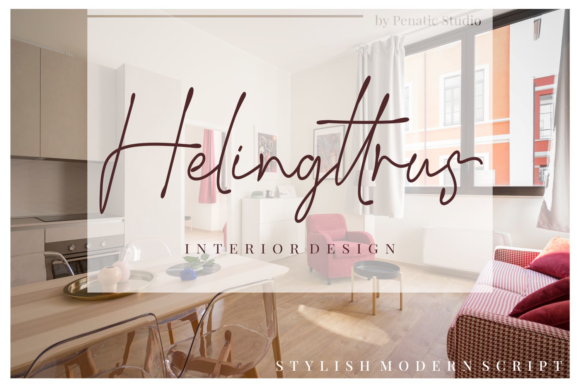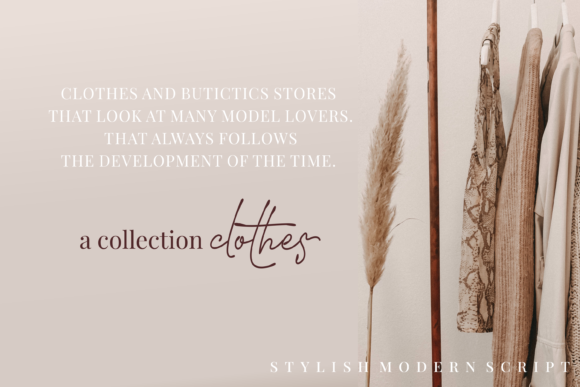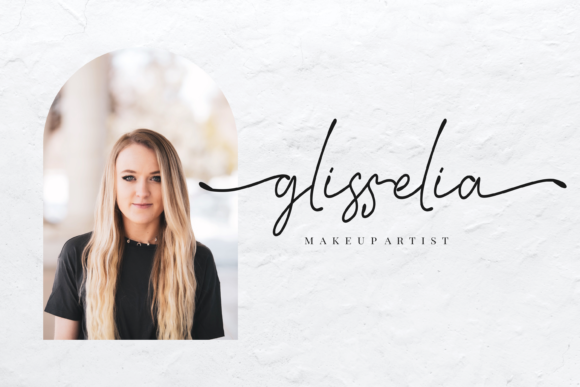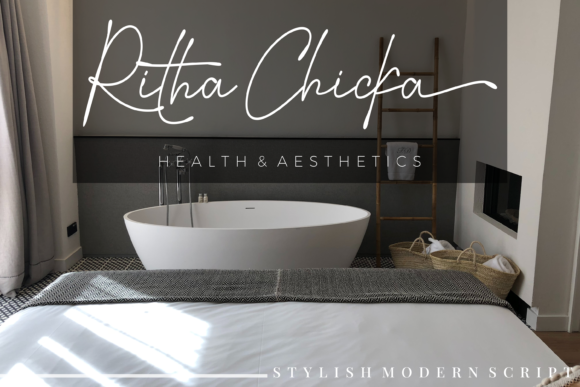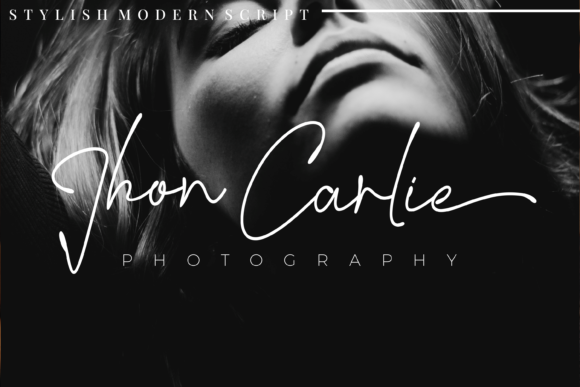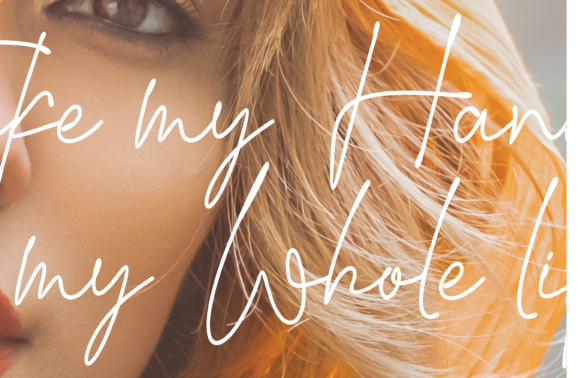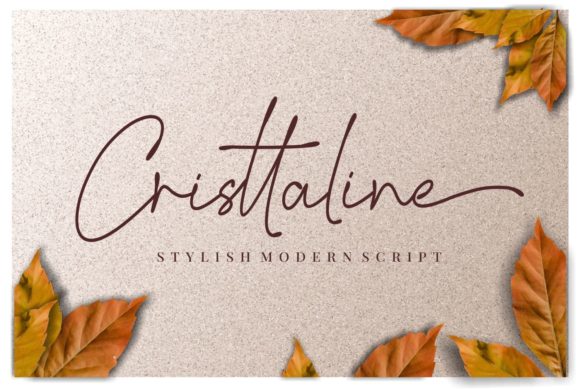
Cristtaline Font: Elevate Your Designs with Luxurious Elegance
In the world of typography, fonts play a crucial role in conveying the tone and aesthetic of a design. For crafters, designers, and creative professionals, finding the perfect typeface can make all the difference in creating stunning visual content. If you’re on the hunt for a modern script font that exudes luxury and sophistication, look no further than Cristtaline.
What is Cristtaline Font?
Cristtaline is a modern script font designed with elegance and refinement in mind. Its fine and delicate characters are crafted to provide a luxurious feel, making it an ideal choice for high-end projects. Whether you’re working on branding, packaging, or advertising materials, Cristtaline is sure to elevate your designs to the next level.
Key Features of Cristtaline Font
• Modern Script Style: Cristtaline boasts a contemporary script style that’s perfect for designers looking to add a touch of sophistication to their work.
• Fine and Elegant Characters: Each character in the Cristtaline font is carefully crafted to provide a luxurious feel, making it suitable for high-end designs.
• PUA Encoded: Cristtaline is PUA (Private Use Area) encoded, which means you can easily access all the glyphs and swashes, giving you maximum flexibility in your designs.
• Luxurious Vibes: The overall aesthetic of Cristtaline is one of luxury and refinement, making it perfect for projects that require a high-end feel.
Benefits of Using Cristtaline Font
So, why choose Cristtaline for your design projects? Here are just a few benefits of using this stunning script font:
• Elevate Your Brand: With Cristtaline, you can add a touch of luxury and sophistication to your brand’s visual identity, helping you stand out in a crowded market.
• Versatility: Cristtaline is perfect for a wide range of design projects, from branding and packaging to advertising and editorial content.
• Ease of Use: Thanks to its PUA encoding, Cristtaline is easy to use, even for designers who are new to working with script fonts.
• Unique and Memorable: Cristtaline’s unique and elegant characters will help your designs stay top of mind, making a lasting impression on your audience.
Who Can Benefit from Cristtaline Font?
Cristtaline is an excellent choice for a variety of creative professionals, including:
• Graphic Designers: Whether you’re working on branding, packaging, or advertising materials, Cristtaline is a great addition to your font library.
• Crafters: If you’re a crafter looking to add a touch of elegance to your products or marketing materials, Cristtaline is an excellent choice.
• Stationery Designers: Cristtaline’s luxurious feel makes it perfect for designing high-end stationery, such as wedding invitations, business cards, and letterheads.
• Digital Designers: Cristtaline can also be used in digital designs, such as website headers, social media graphics, and email marketing campaigns.
Font Name Cristtaline Font
Author Penatic Studio
In conclusion, Cristtaline is a stunning modern script font that’s perfect for designers and crafters looking to add a touch of luxury and sophistication to their work. With its fine and elegant characters, PUA encoding, and luxurious vibes, Cristtaline is sure to elevate your designs to the next level. Whether you’re working on branding, packaging, advertising, or digital content, Cristtaline is an excellent choice for any project that requires a high-end feel.